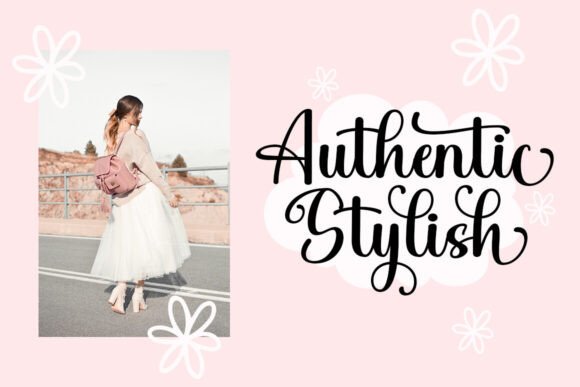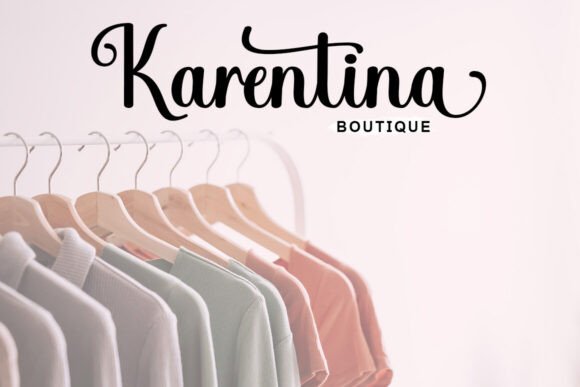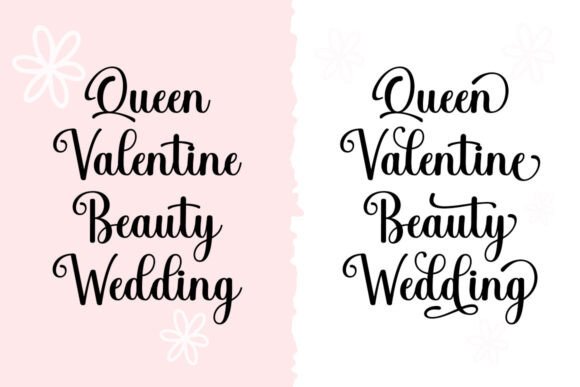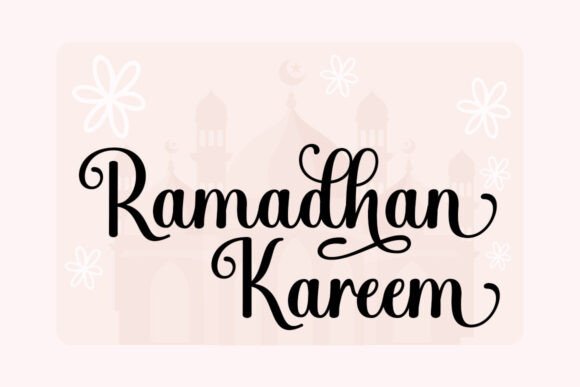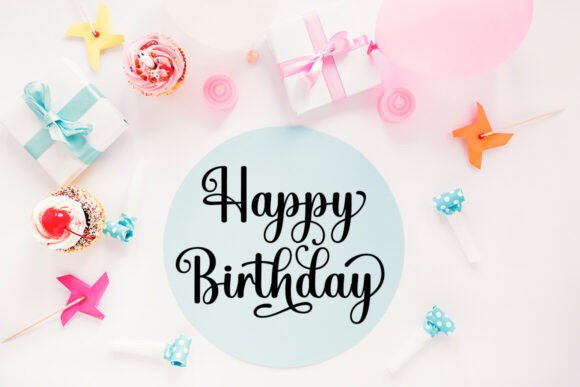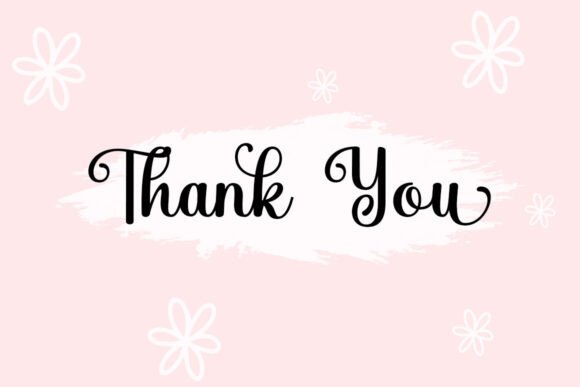
Unleashing Your Creativity with the Perfect Script
Enter the Creative Quench Font, a stunning modern script font that’s perfect for adding a touch of elegance to any project. Whether you’re designing wedding invitations, greeting cards, or logos, this font is sure to quench your creative thirst. With its trendy and feminine style, it’s a must-have for any designer looking to add a little extra oomph to their work.
Creative Quench Font Key Features
- Unique Characteristics: Combines modern and elegant design elements with a touch of whimsy, making it perfect for creative and artistic projects
- Font Weight: Available in 5 weights: Light, Regular, Medium, Bold, and Black, offering flexibility for various design needs
Designer Review: Creative Quench Font
Overall, I’m a big fan of the Creative Quench Font. The designer has done an amazing job of creating a unique and versatile font that can be used for a wide range of projects. ✨ One of the standout features of this font is its ability to add a touch of sophistication and elegance to any design. The font’s sleek lines and modern feel make it perfect for anything from branding and advertising to editorial and digital design.
- The font has a great balance of bold and light weights, making it easy to use in a variety of contexts.
- The font’s x-height is well-proportioned, making it easy to read and understand.
- The font’s unique character set adds a touch of personality to any design.
That being said, there are a few limitations to consider. ⚠️ The font may not be suitable for use in small text sizes, as the lines can become a bit blurry and difficult to read. Additionally, the font may not be as effective in certain cultural contexts where the design aesthetic may not be as familiar.
Overall, I would highly recommend the Creative Quench Font for any designer looking to add a touch of sophistication and elegance to their work. While it may have a few limitations, the benefits far outweigh the drawbacks. With its unique design and versatility, this font is sure to be a hit with designers and clients alike.
To get the most out of Creative Quench Font, try the following:
- Use it for headings and titles to add a touch of elegance.
- Combine it with other fonts for a unique and creative look.
- Experiment with different font sizes and colors to add visual interest.
Creative Quench Font is perfect for:
- Photography and art projects.
Alternatives to Creative Quench Font
The Great Vibes Font is a beautiful, elegant script font that is perfect for creating a luxurious and sophisticated feel. It’s ideal for use in branding, invitations, and other high-end designs. Compared to Creative Quench Font, Great Vibes Font has a more refined and polished look, making it suitable for corporate and upscale projects.
Pacifico Font is a modern script font that exudes a relaxed and casual vibe. It’s perfect for use in creative projects, such as blog headers, social media graphics, and advertising materials. Compared to Creative Quench Font, Pacifico Font has a more laid-back and effortless feel, making it ideal for projects that require a fun and approachable tone.
The Dancing Script Font is a lively and playful script font that’s perfect for adding a touch of whimsy to your designs. It’s ideal for use in children’s projects, such as educational materials, party invitations, and product packaging. Compared to Creative Quench Font, Dancing Script Font has a more energetic and dynamic feel, making it suitable for projects that require a fun and youthful tone.